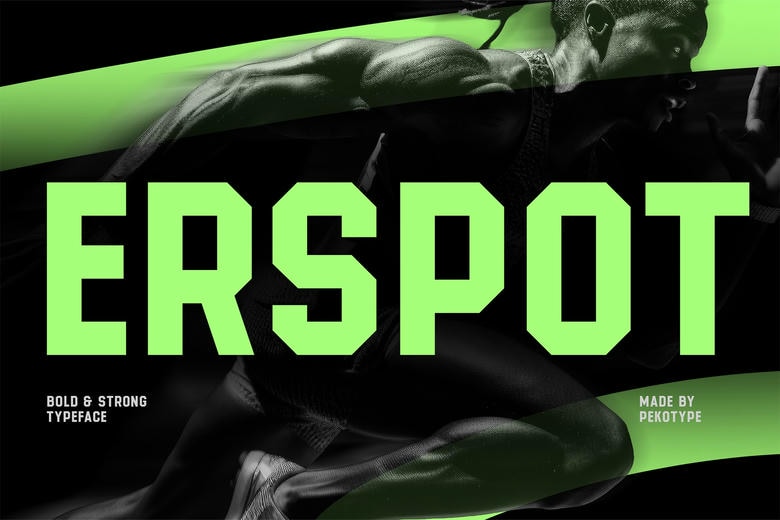
Erspot Font
Erspot is an all caps sport display font designed for heavy, powerful visuals. “Letters are so athletic and quick, it’s all really physical,” it says. Erspot has been designed to appear both strong and contemporary, with the style reminiscent of sports branding and racing graphics. It’s the sort of font that just screams competition, action, and it grabs your attention right away all while still managing to be clean and legible.
The font made for sports posters, team logos, jersey numbers, racing graphics, fitness branding, event banners and esports visual. Useful for football clubs, sport themes, fitness projects and any other project that requires a loud and strong sports theme.
Erspot Display Font